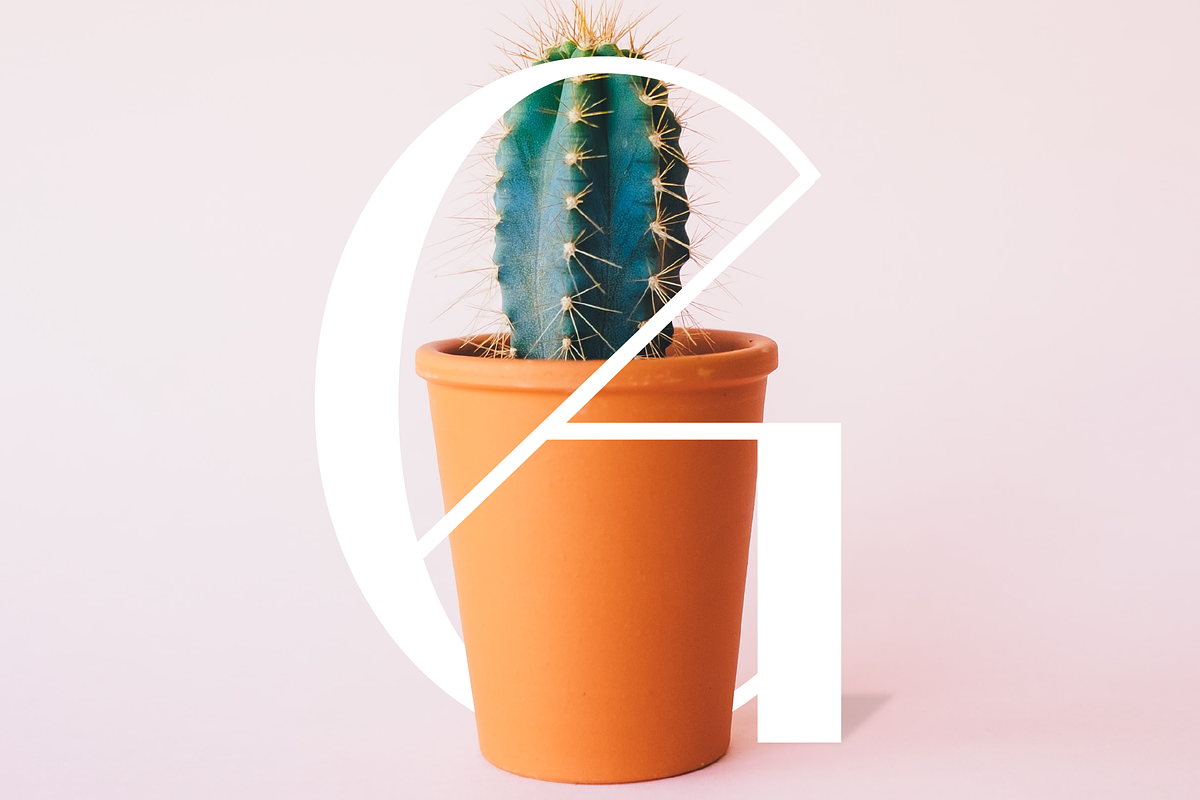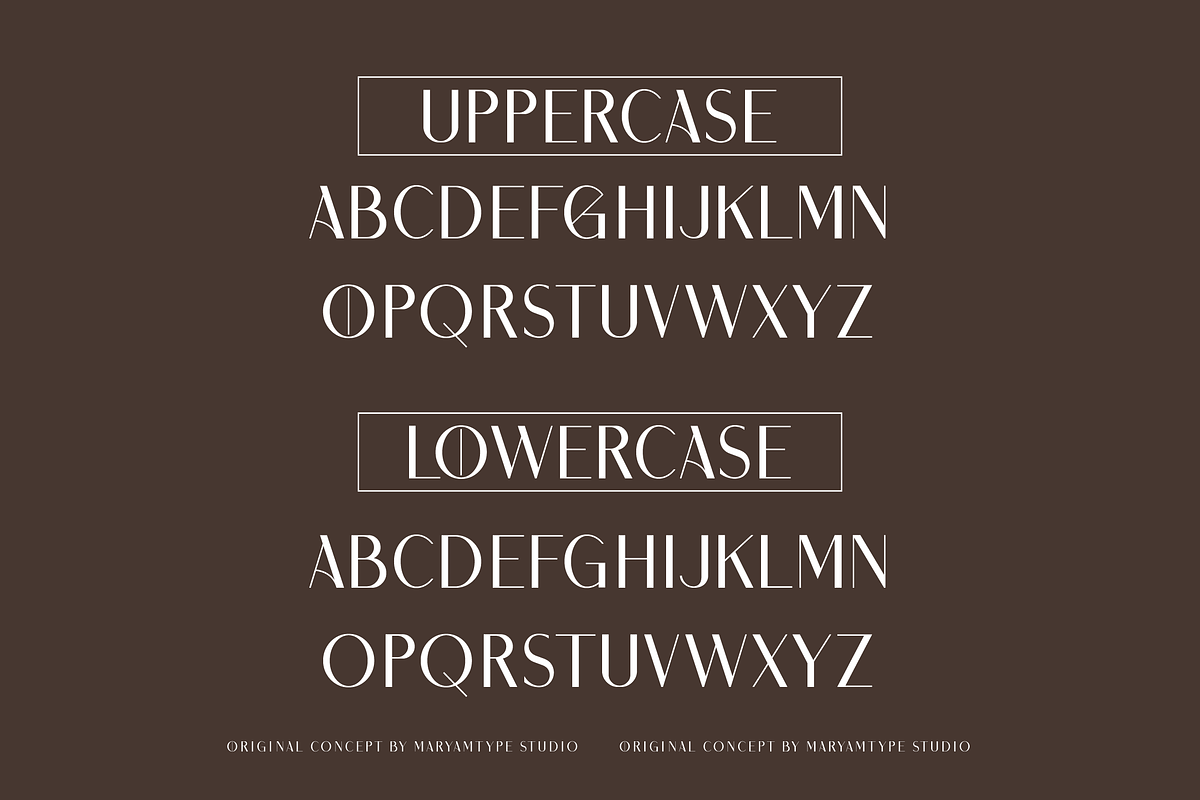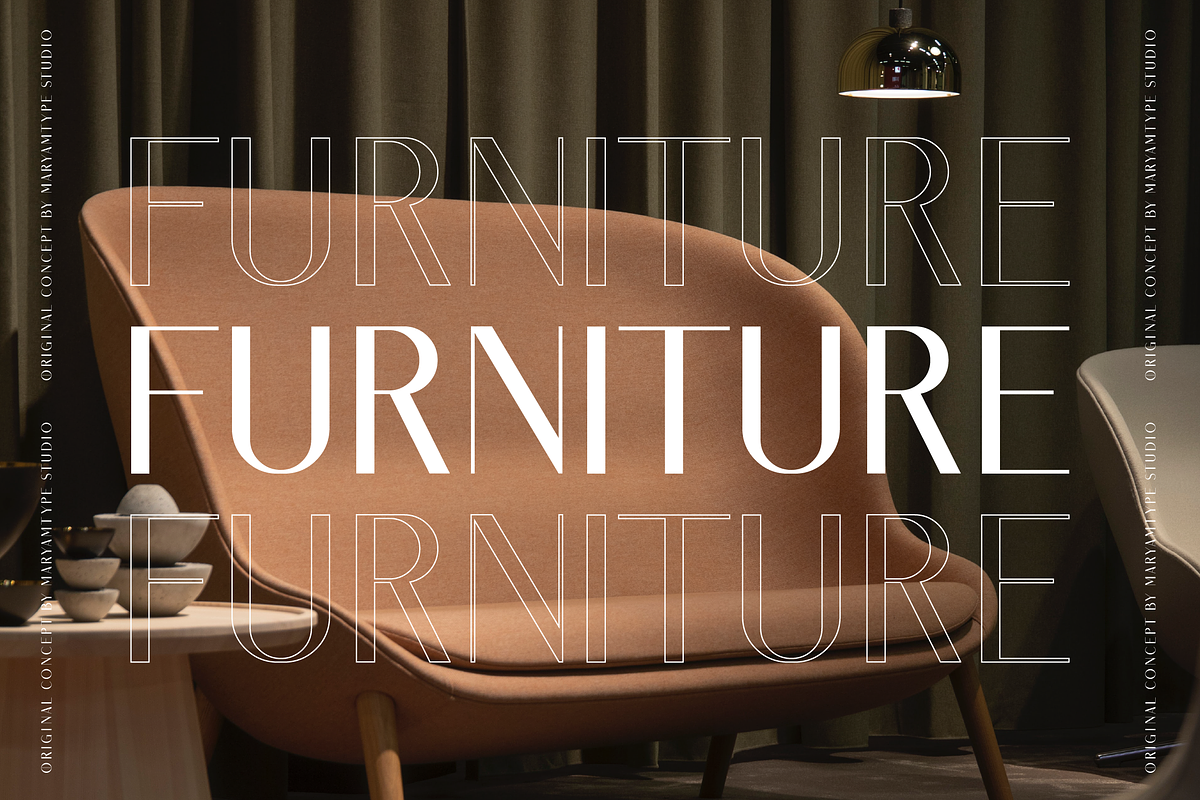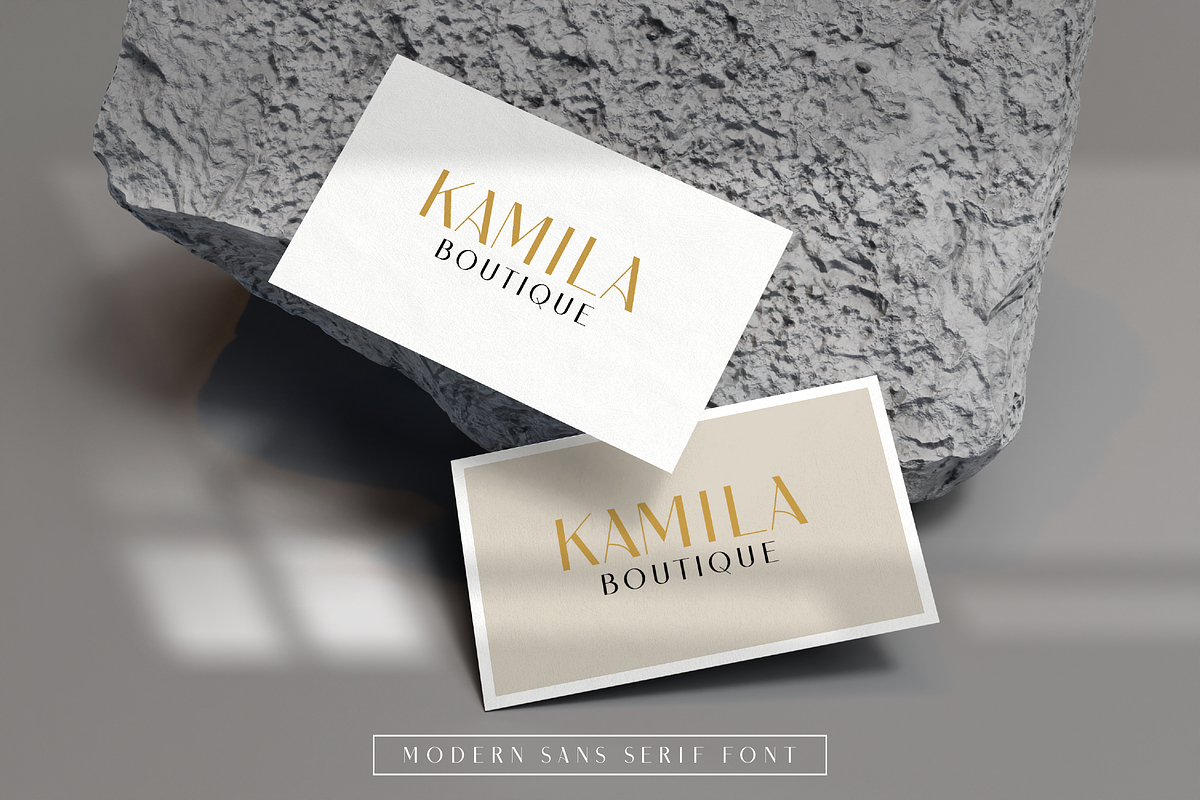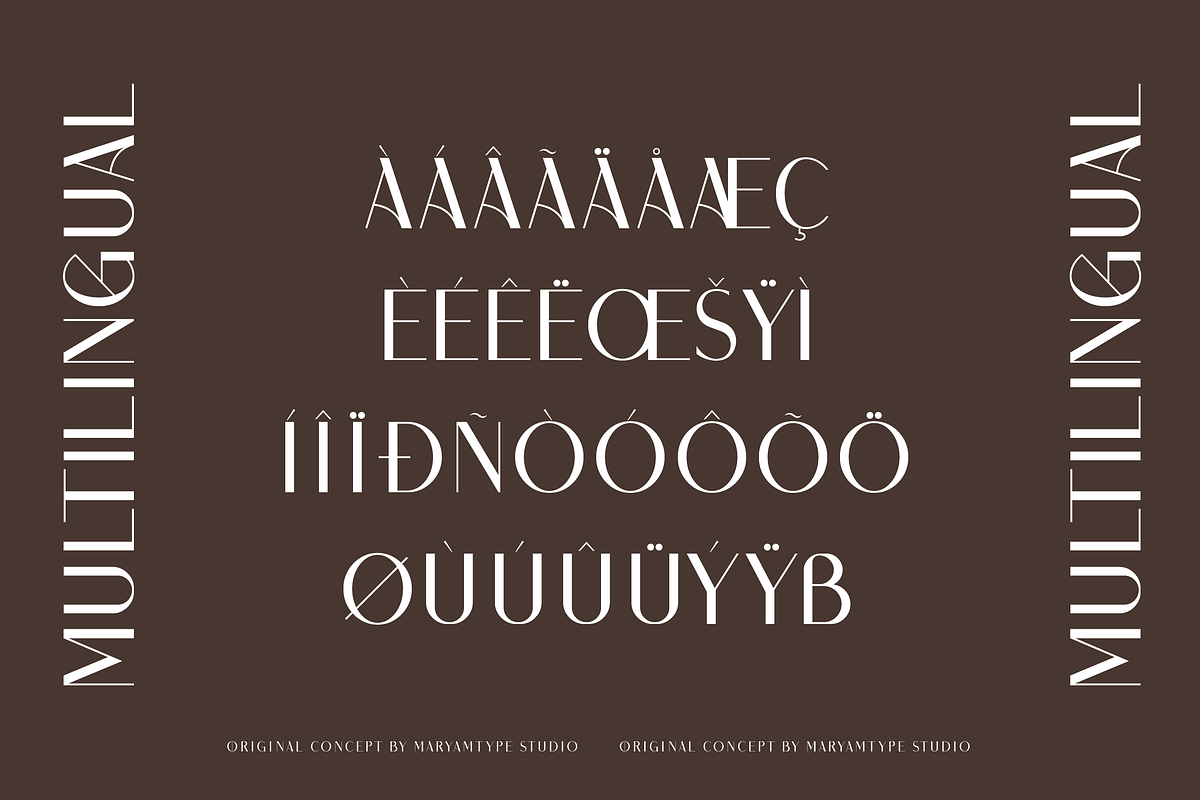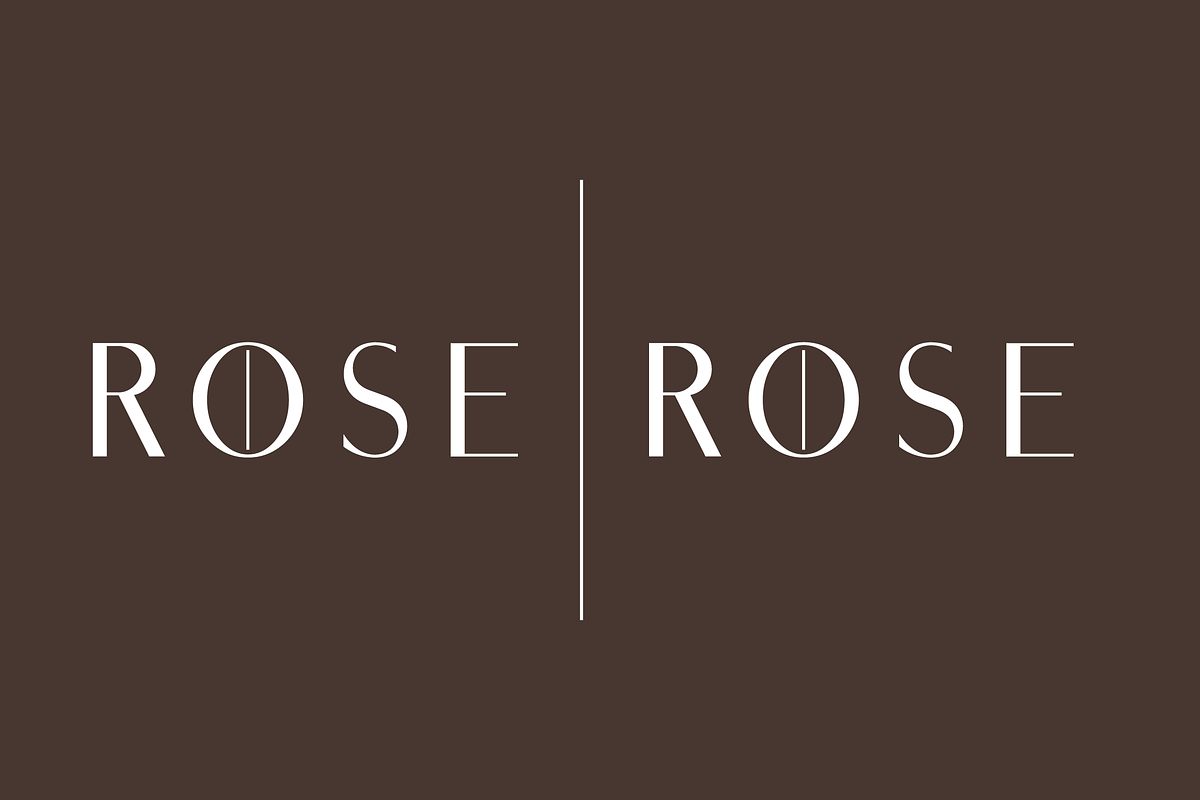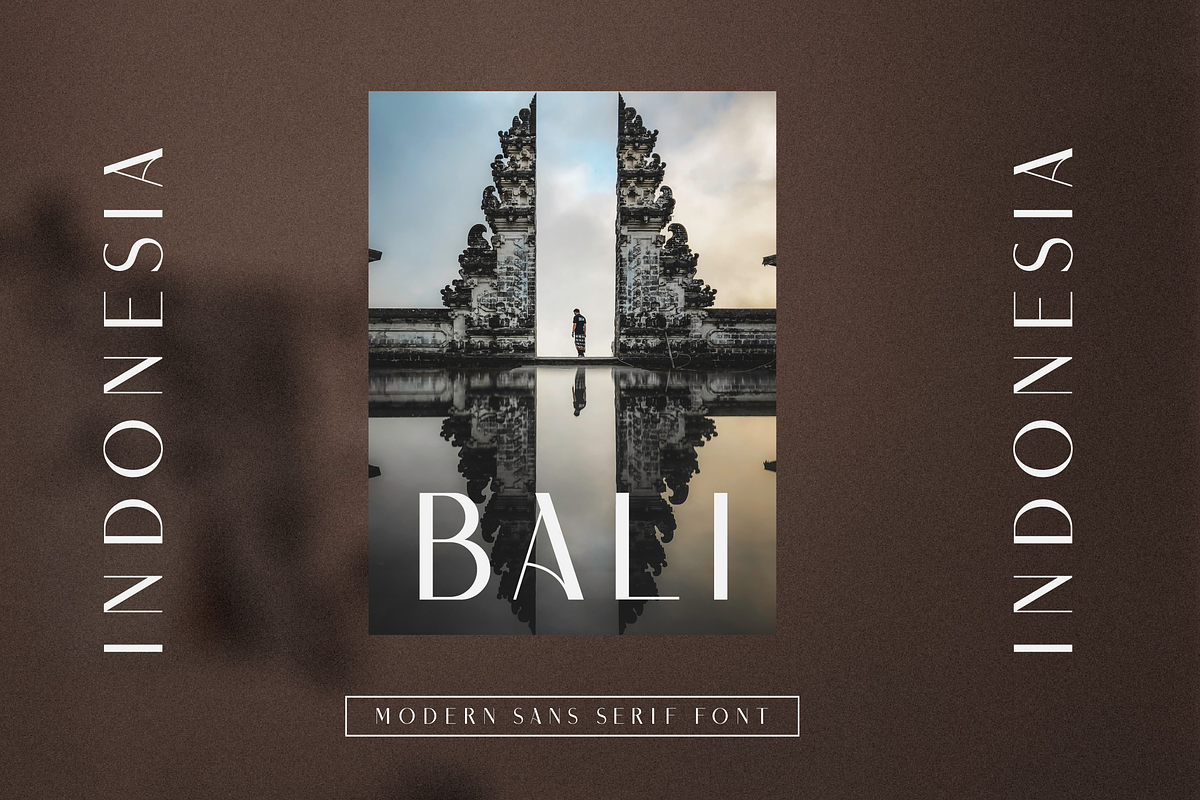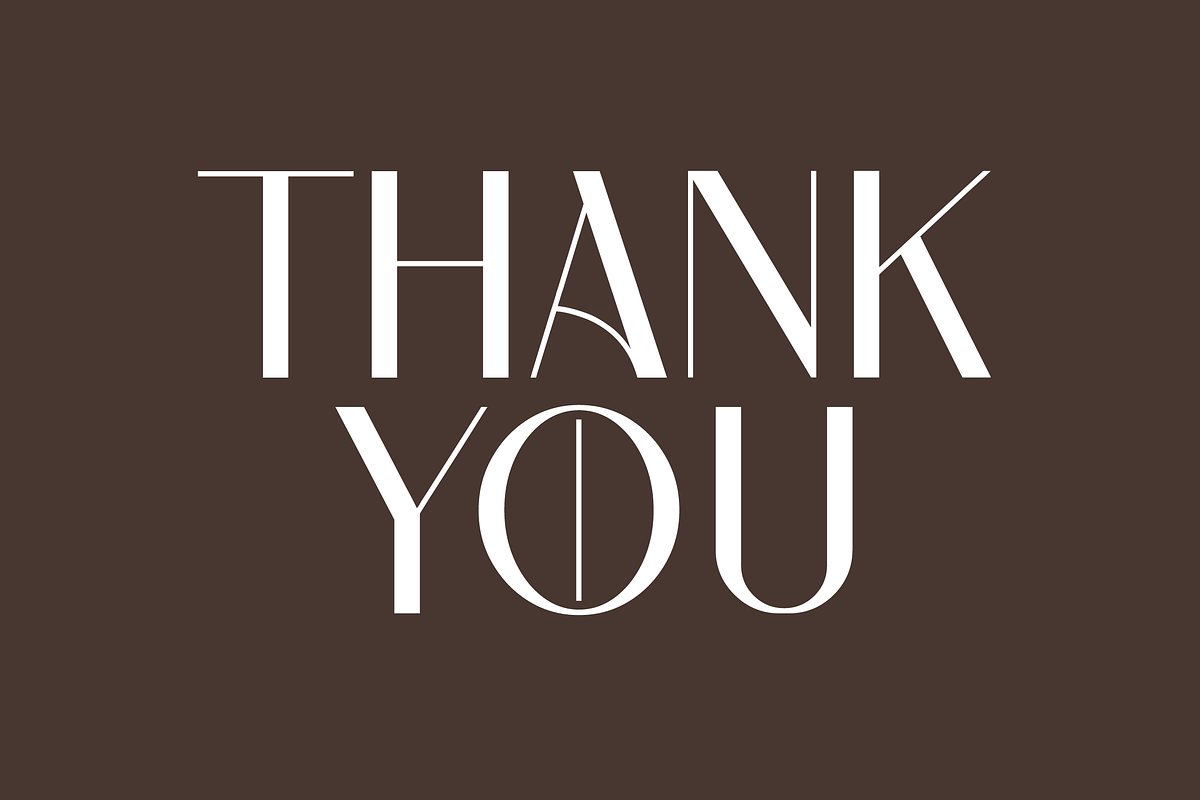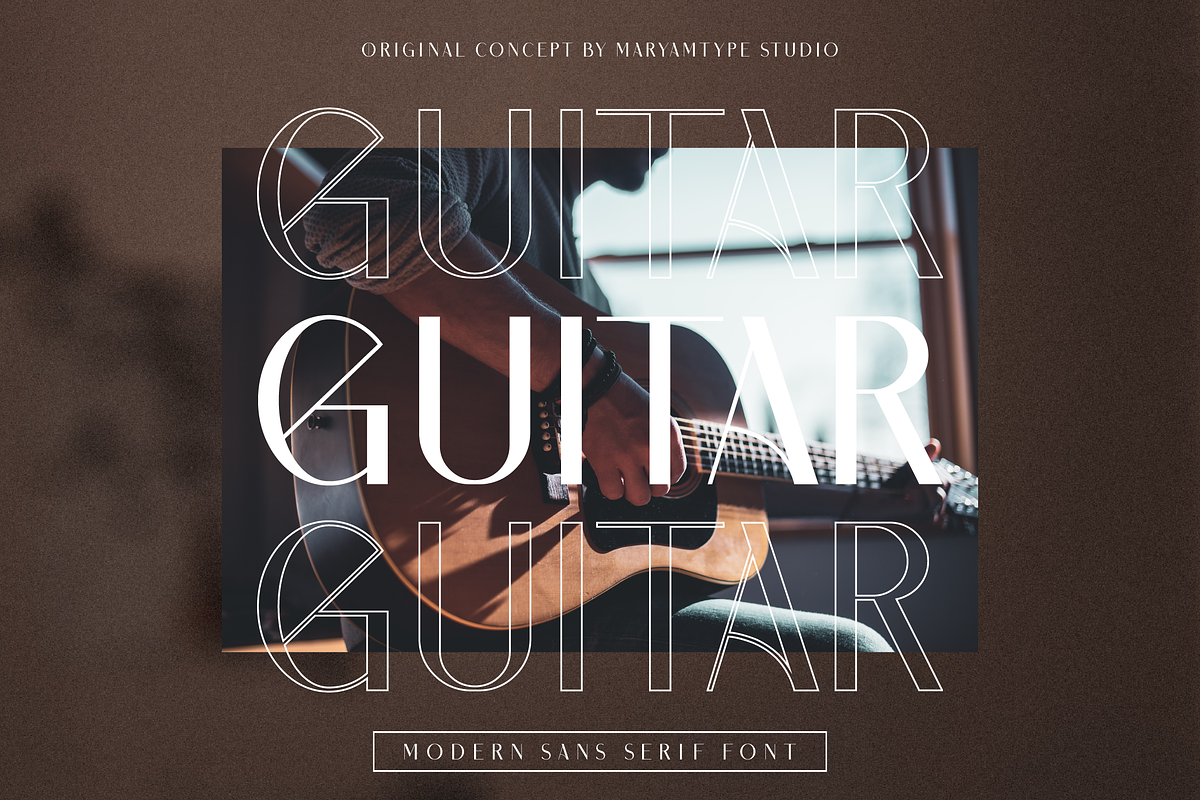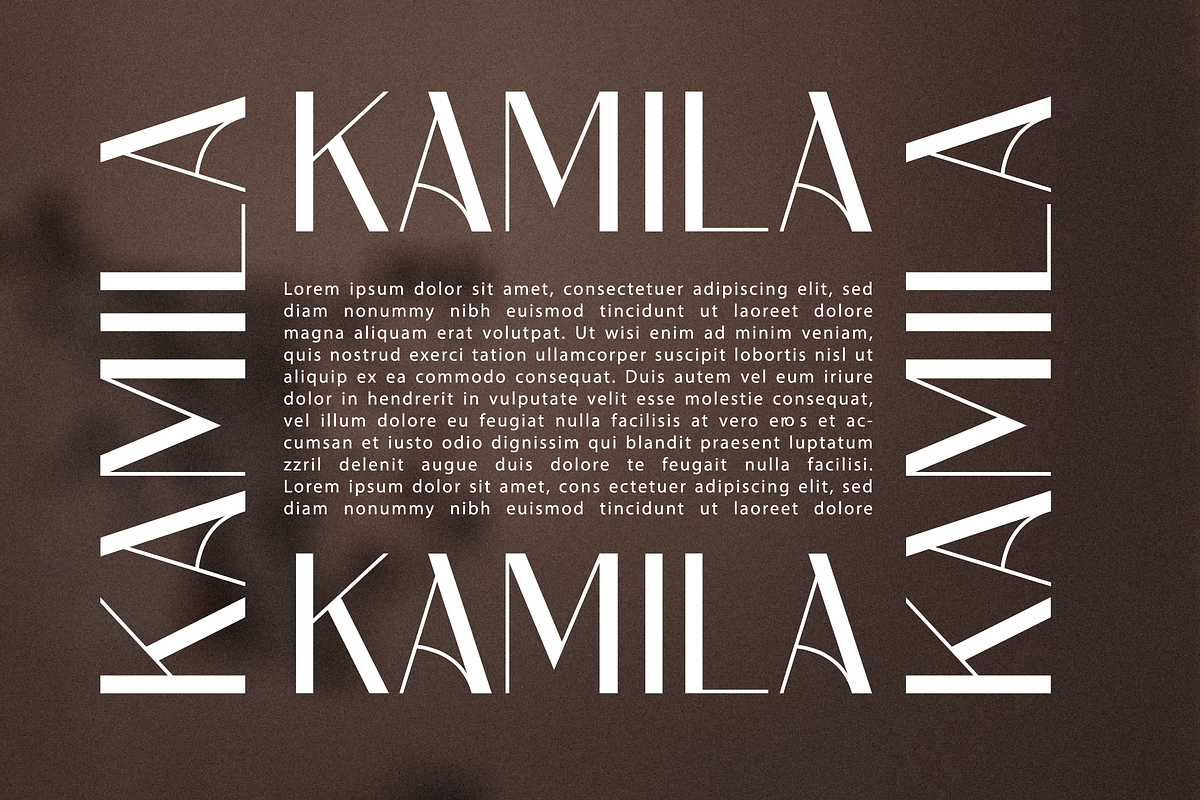
Palion Sans Serif
Proudly present PALION Typeface , created by Maryamtype, A sans serif modern typeface that has own unique style ; modern look. This typeface is perfect for an elegant ; luxury logo, book or movie title design, fashion brand, magazine, clothes, lettering, quotes, and so much more.